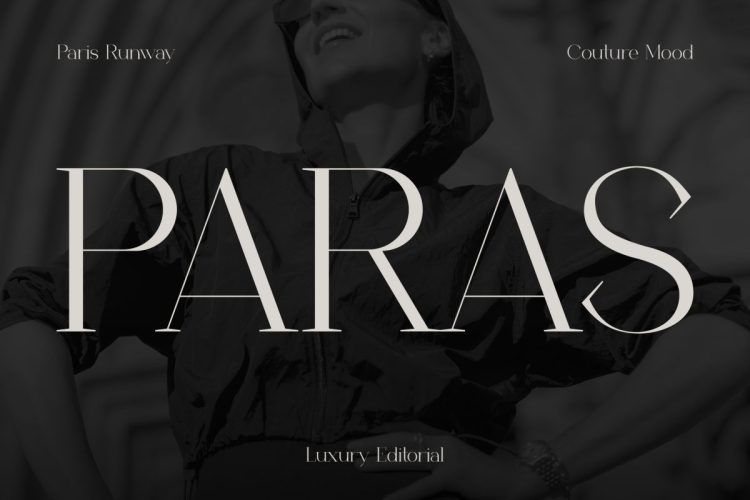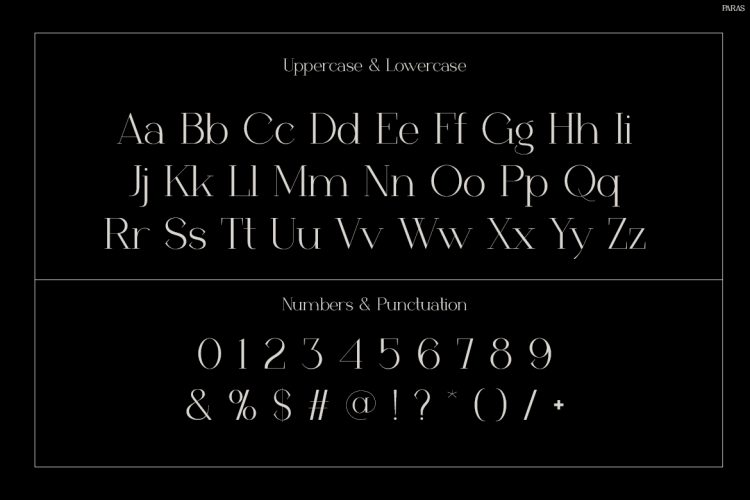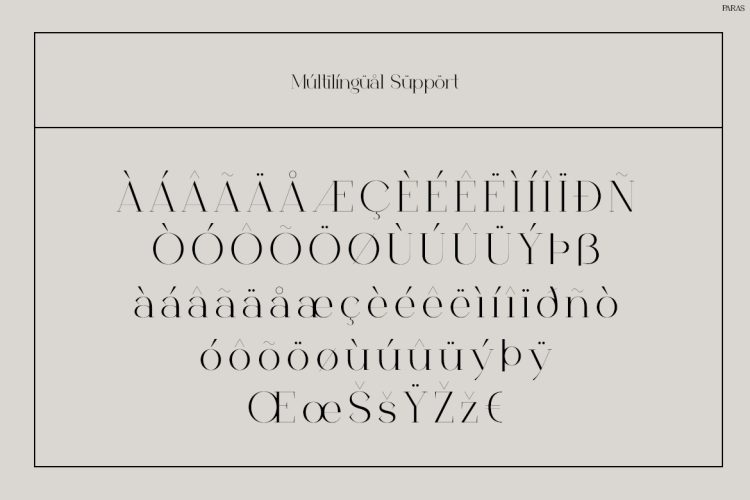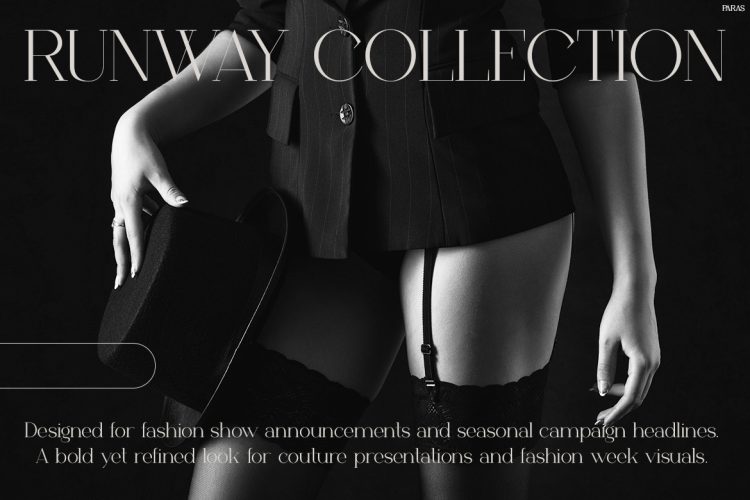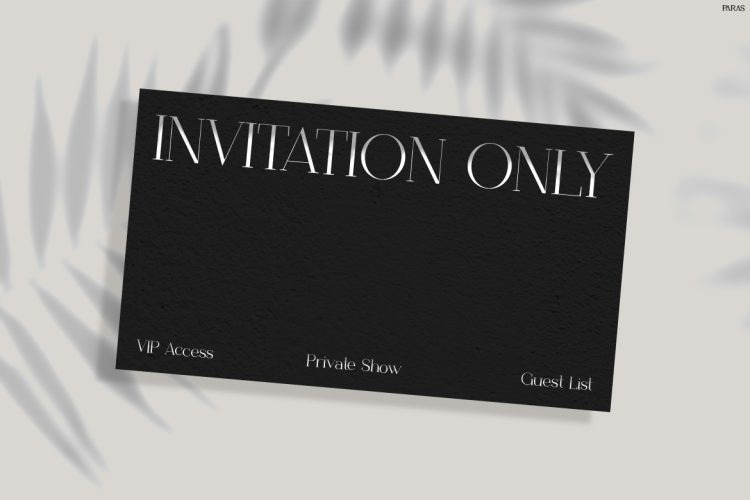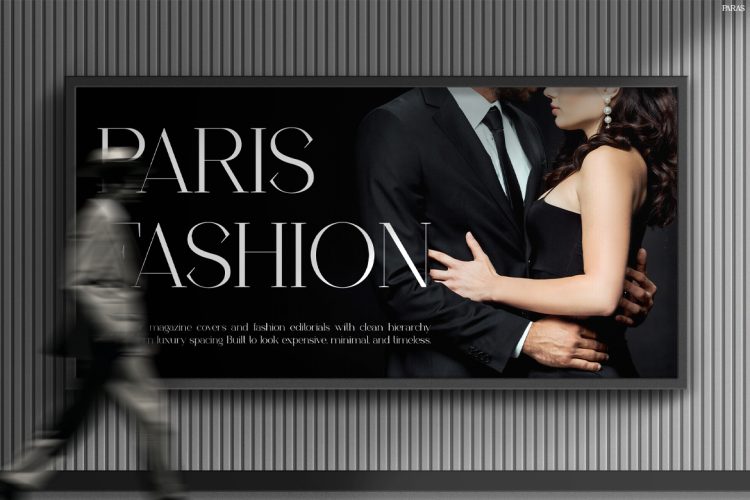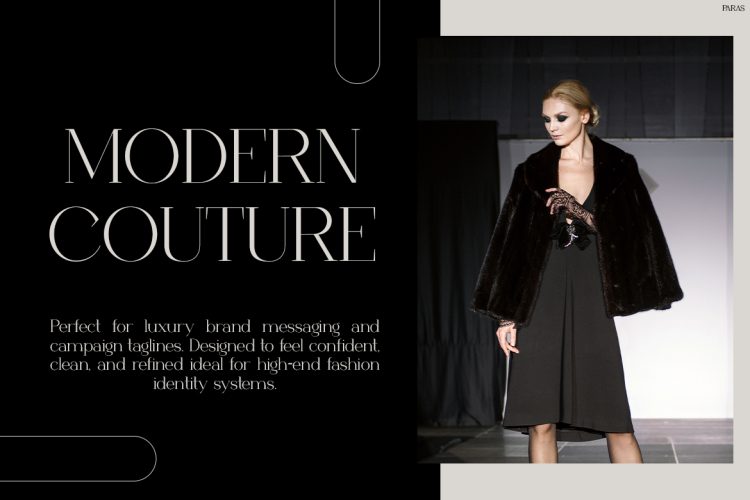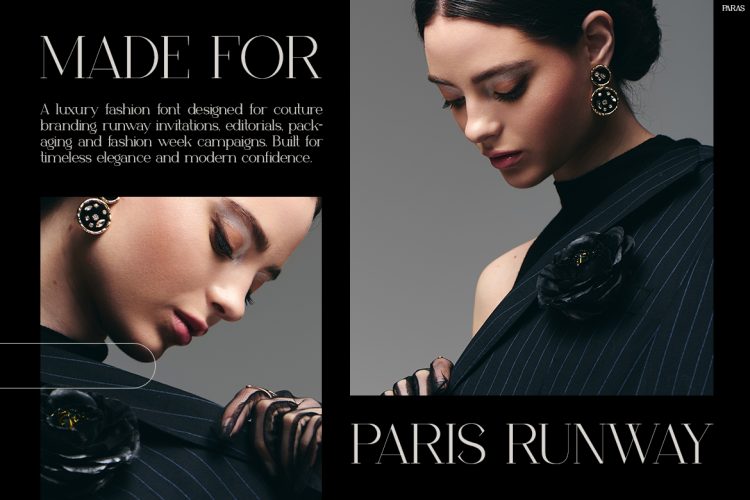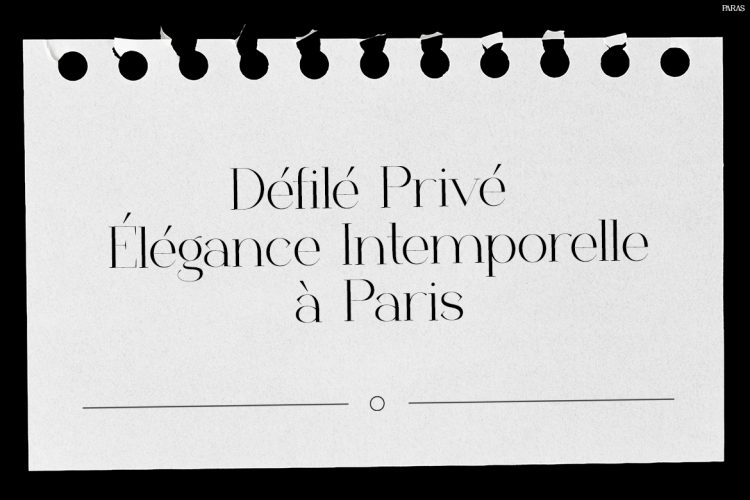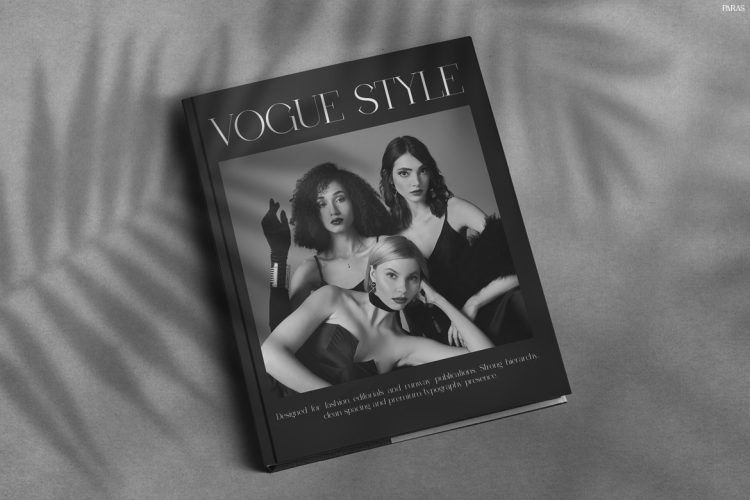
Instagram Font Paras โ Elegant Modern Serif for Bold Visual Identity
Instagram Font Paras delivers a refined serif look with strong visual impact and effortless elegance. Moreover, its thin strokes and graceful curves create an artistic and modern feel. The high-contrast letterforms make every word look confident and expressive. In addition, Paras offers a sleek editorial style that feels clean, fashionable, and timeless. Therefore, it is perfect for projects that need sophistication without feeling too heavy. With multilingual support for 67 languages, this font gives both beauty and function for global-ready designs.
Why It Stands Out
Paras is made for branding that needs a polished and memorable presence. Therefore, it works beautifully for fashion campaigns, magazine layouts, and invitations. It is also perfect for social media posts, beauty branding, and book covers. Furthermore, it fits packaging, portfolio presentations, and editorial headlines. Its stylish serif structure creates a professional and aesthetic impression. As a result, your content looks sharp, elegant, and highly engaging in print and digital projects.
This font is ideal for fashion designers and content creators. It also works well for social media managers and beauty brands. Boutique owners, publishers, and photographers will love its style. In addition, wedding planners and branding studios can use it beautifully. Creative entrepreneurs can also build stronger visual identities with it. It is especially perfect for feminine branding, product packaging, and stylish presentations.